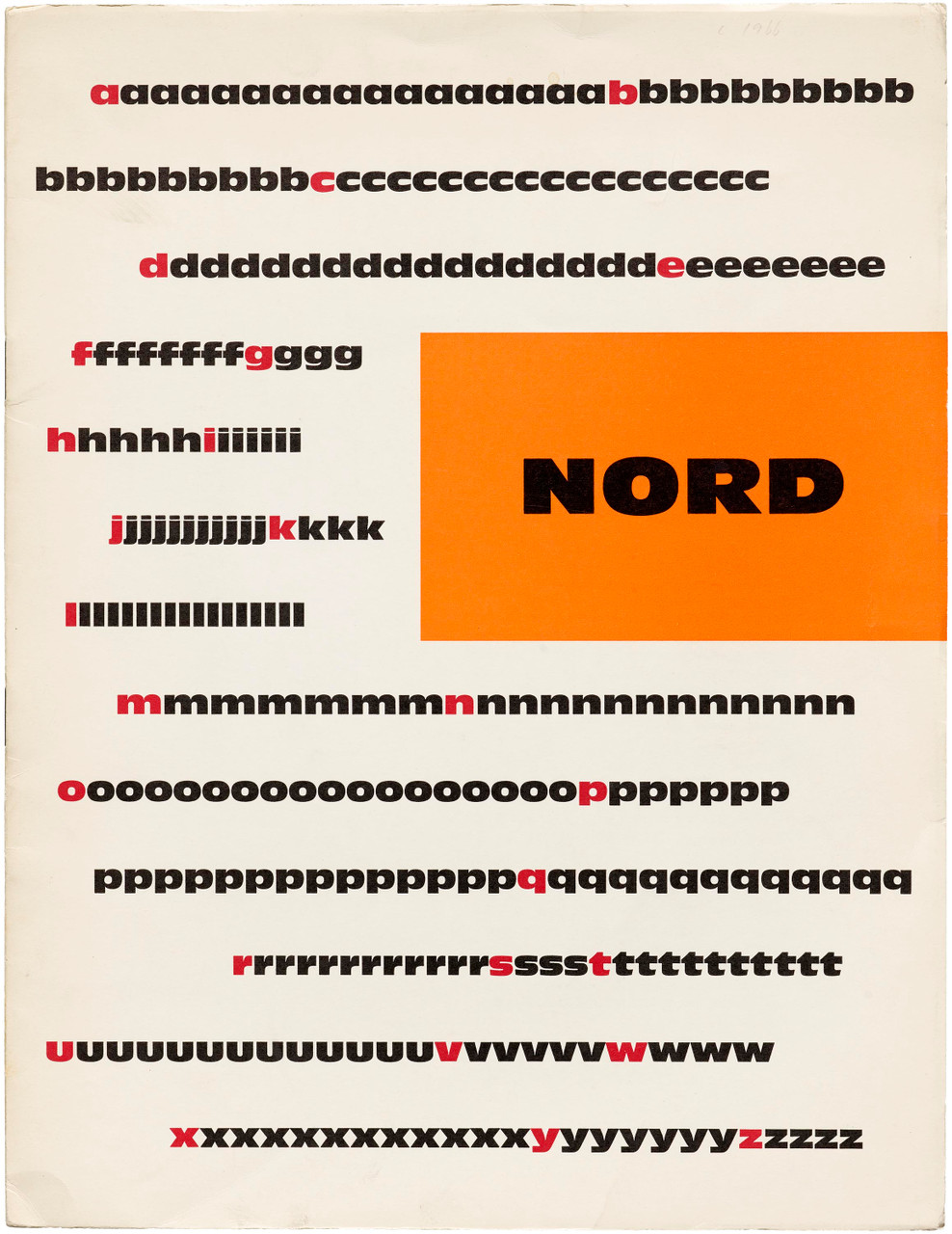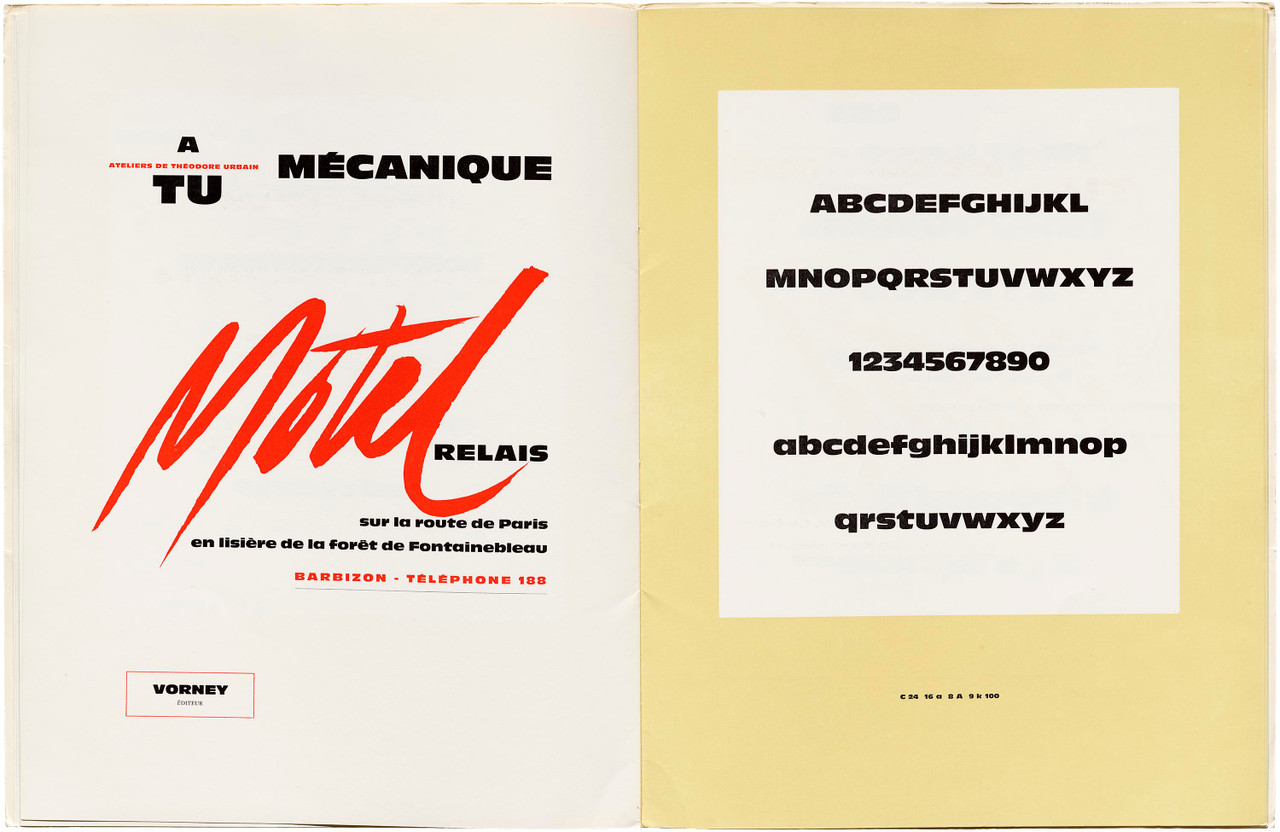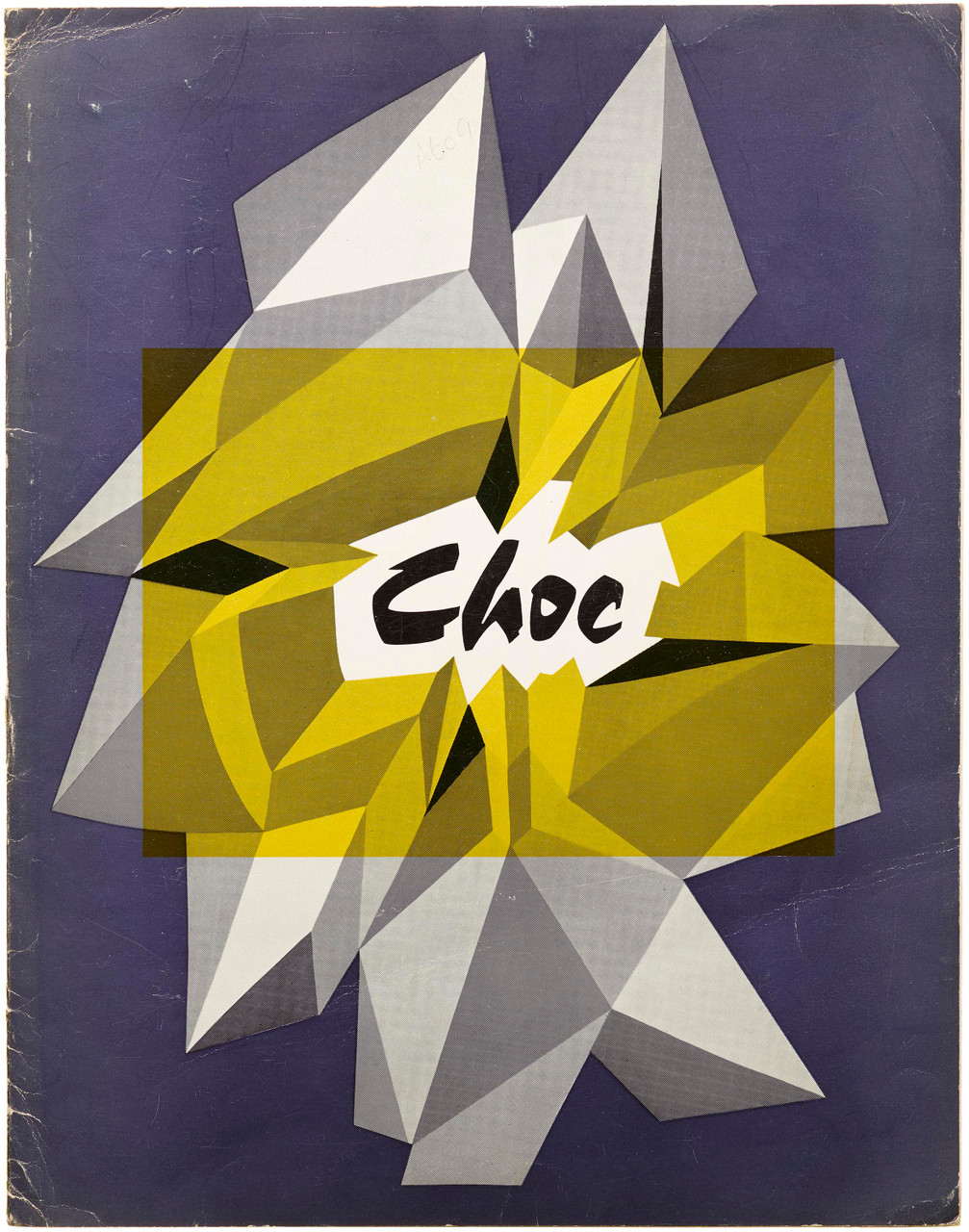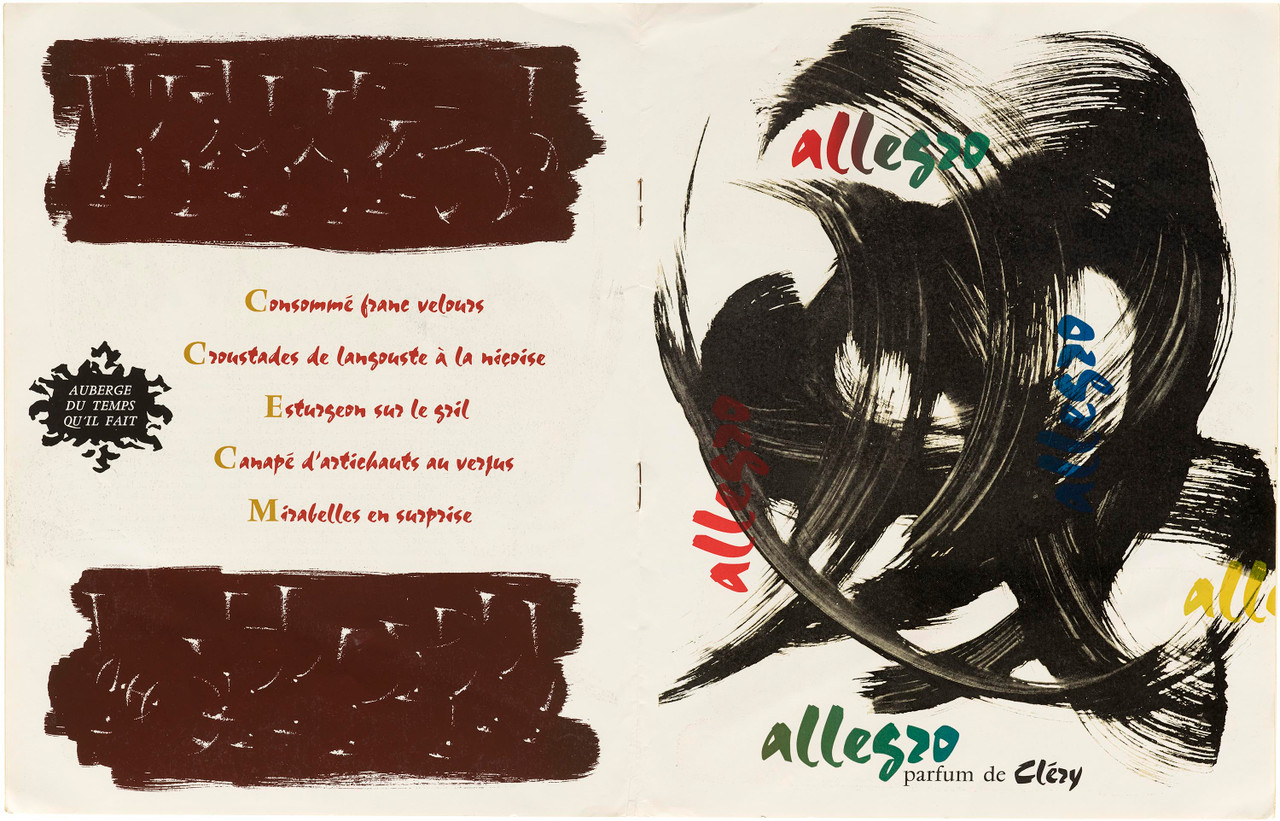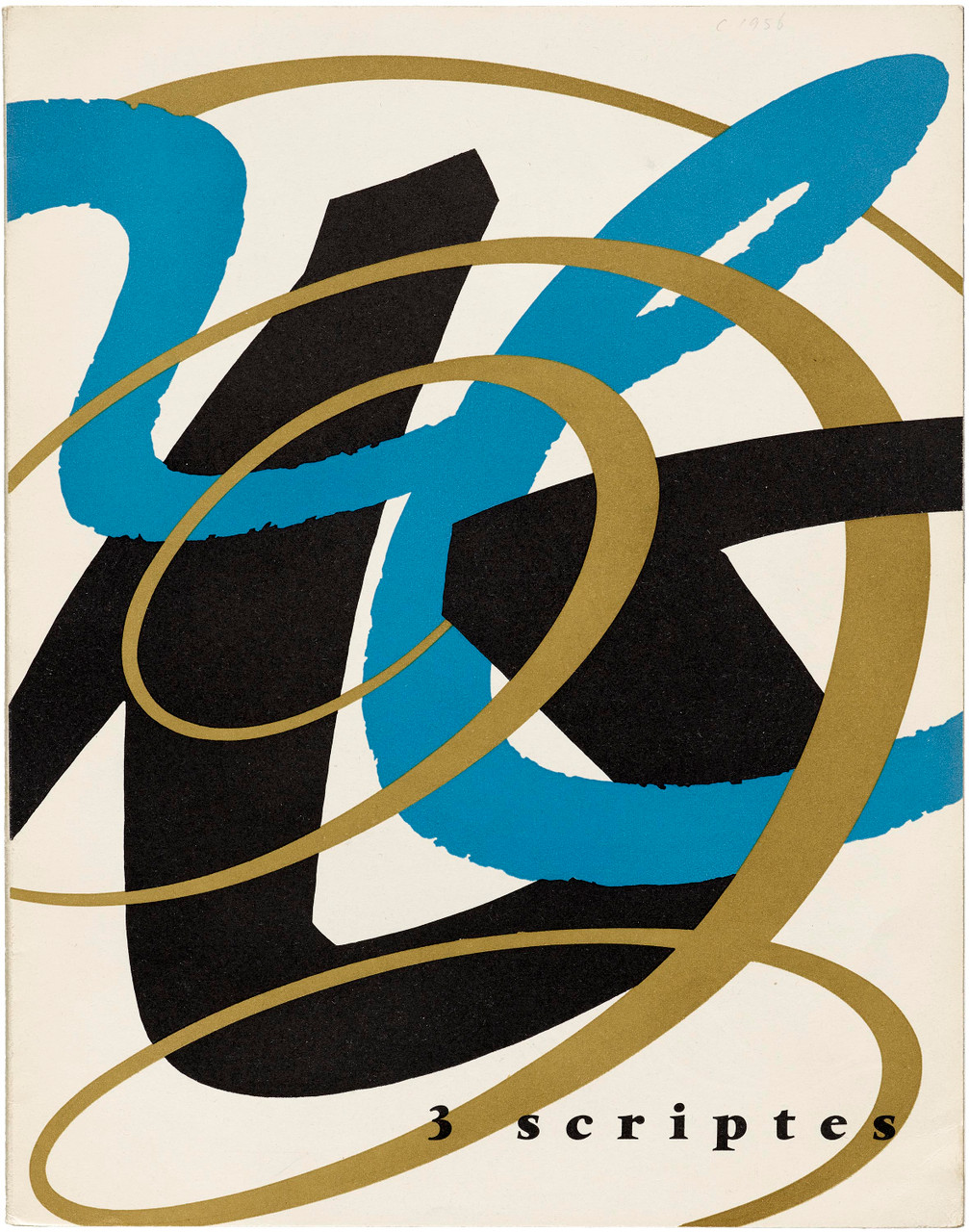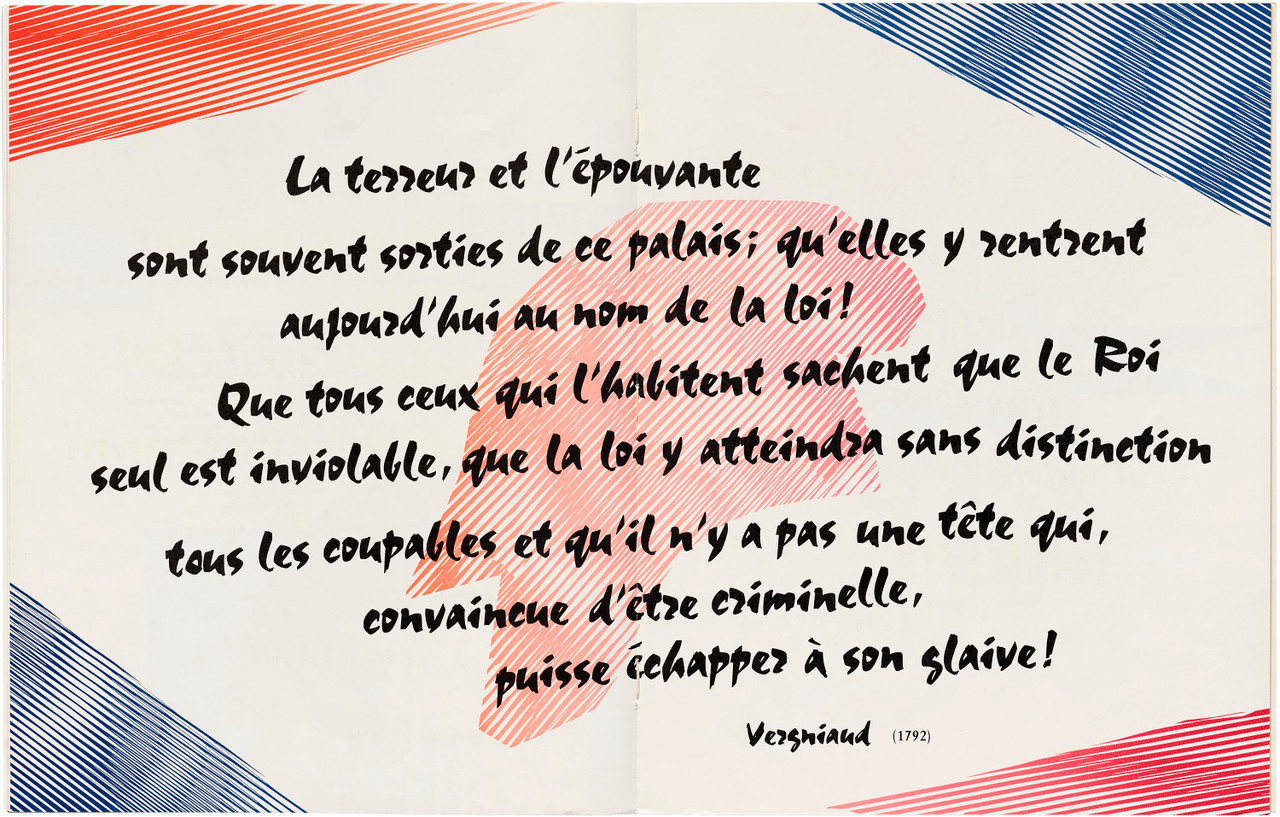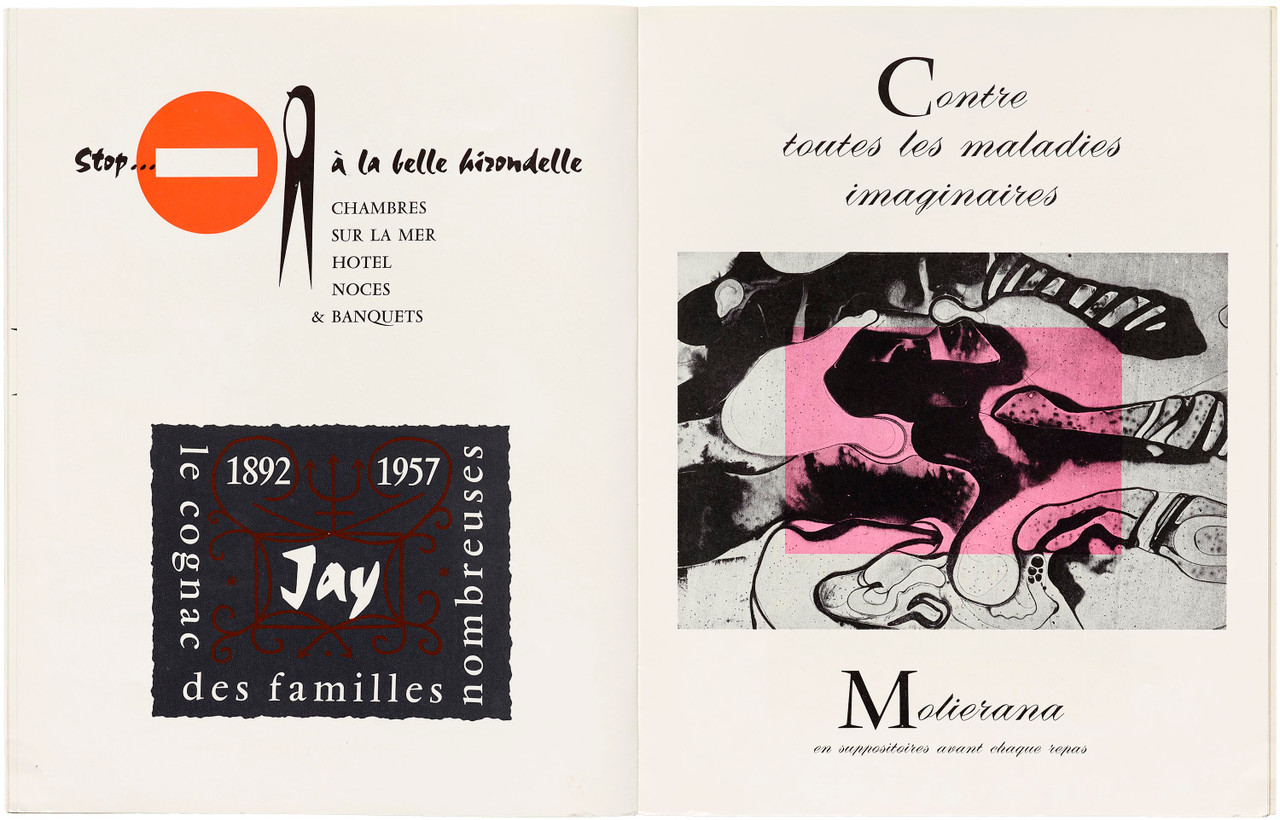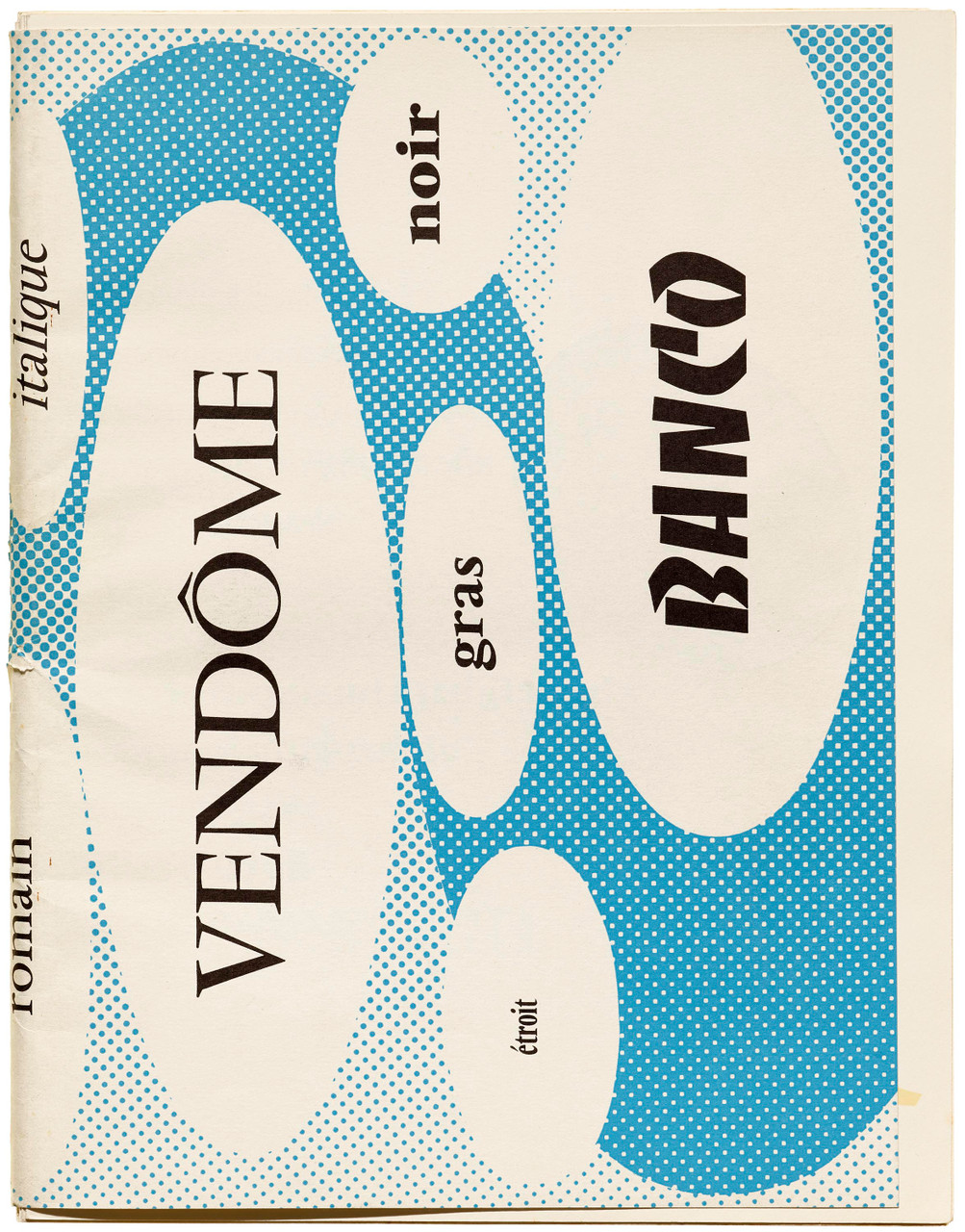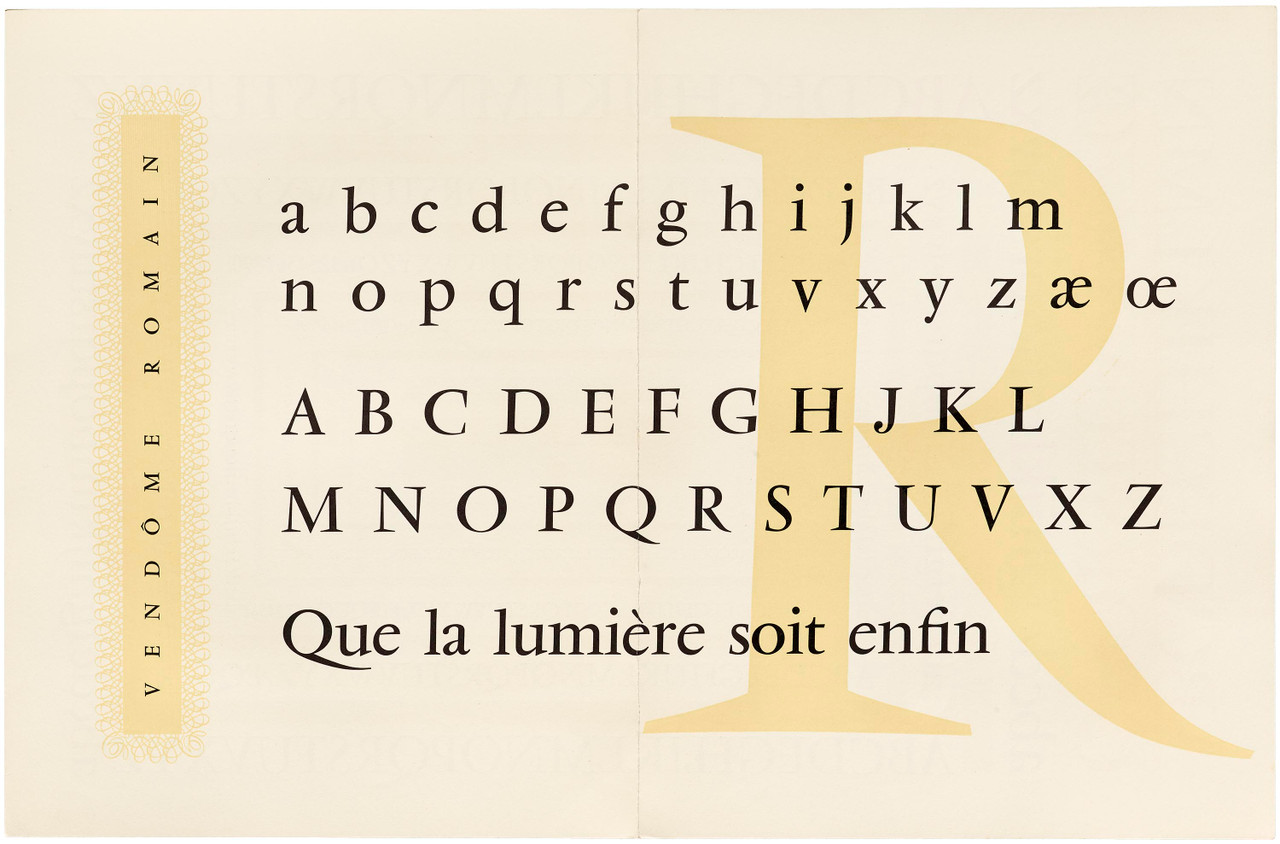
Dynamic, unconventional, and assertive typefaces from Roger Excoffon, the French type design icon behind Mistral, presented in ten facsimiles of Fonderie Olive specimens from the 1940s, ’50s, and ’60s
Small masterpieces from the age of metal type, foundry specimen booklets introduced new typefaces to the world with exquisitely arranged showings and a variety of original in-use examples. Distributed as ephemeral marketing, many are bold visual essays, statements of typographic craft, and prized keepsakes containing essential information about type as it was meant to be seen.
This volume reproduces specimens of typefaces by midcentury maestro Roger Excoffon. Covering his entire career with Olive, the family foundry he transformed into an international trendsetter, the selection features dazzling specimens by Excoffon himself and generously includes examples of every typeface he created for the company. Bound in their original trims with an interior pocket containing smaller booklets, they offer invaluable access to the work of one design’s most unmistakable figures.
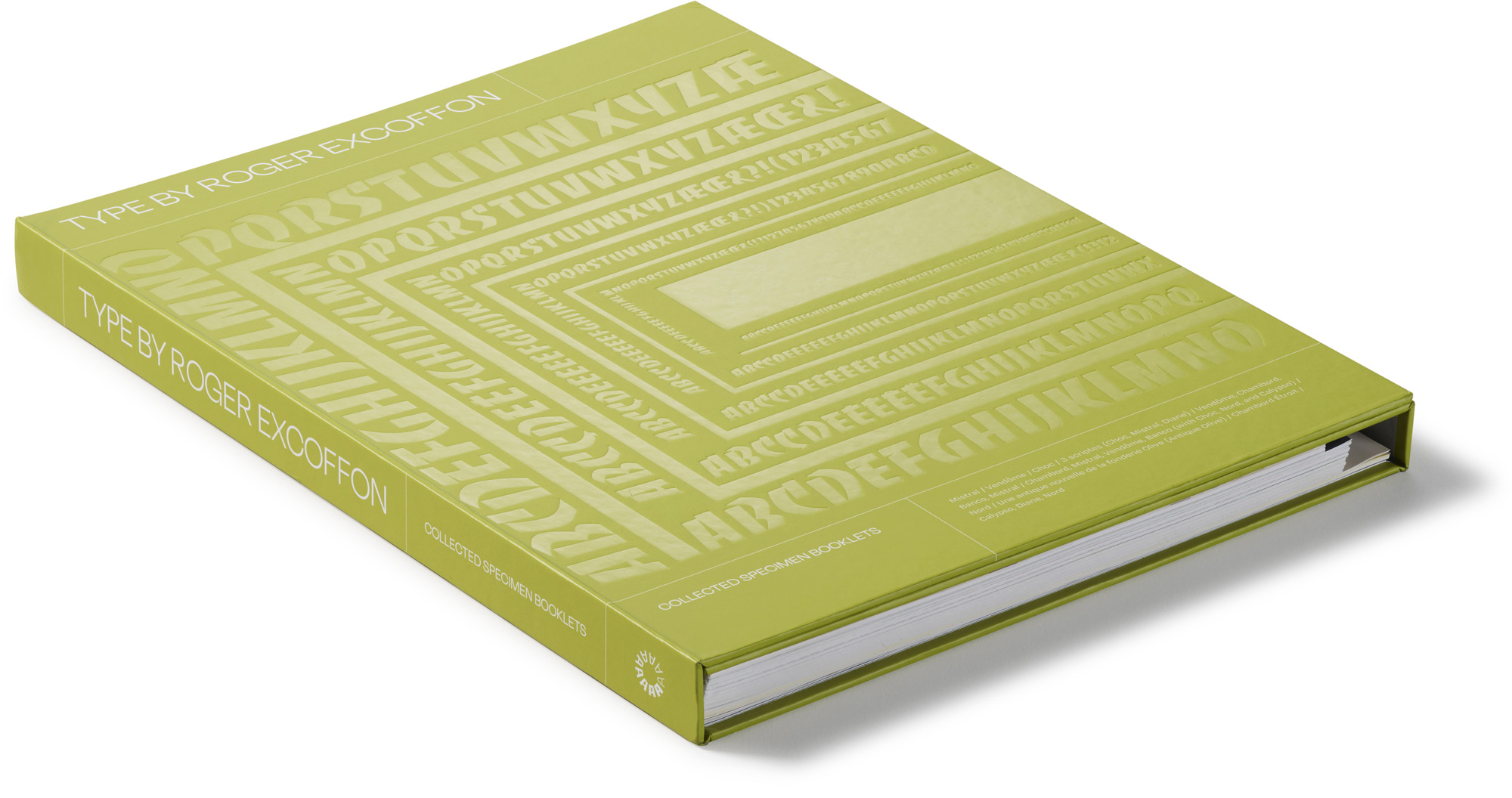
About Roger Excoffon
Roger Excoffon (1910–1983) was a leading French graphic artist, painter, and type designer. He became the art director of Fonderie Olive in 1945, and over the next two decades he headed an ambitious type design program for the Marseille-based foundry, producing some of the most recognizable typefaces of the twentieth century. Excoffon’s innovative print publicity led to high-profile independent design commissions for Air France, the 1968 Grenoble Olympics, and the French state. Found everywhere from shop signs to book covers, Excoffon’s typeface designs remain in widespread use today.
The ten specimens feature well-known typefaces such as Chambord (1947), Vendôme (1950; designed by François Ganeau under Excoffon’s direction), Banco (1951), Mistral (1953), Choc (1955), Diane (1956), Calypso (1958), Nord (1958), and Antique Olive (1962).